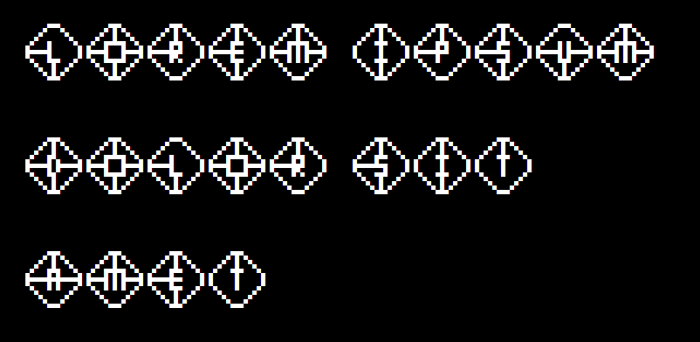
LosPix Font
The initial idea was to create a pixel-by-pixel font
I then got the idea that the letters were linked to a frame and that gave this writing font
Intended use: Start and end screen, Pixel art image